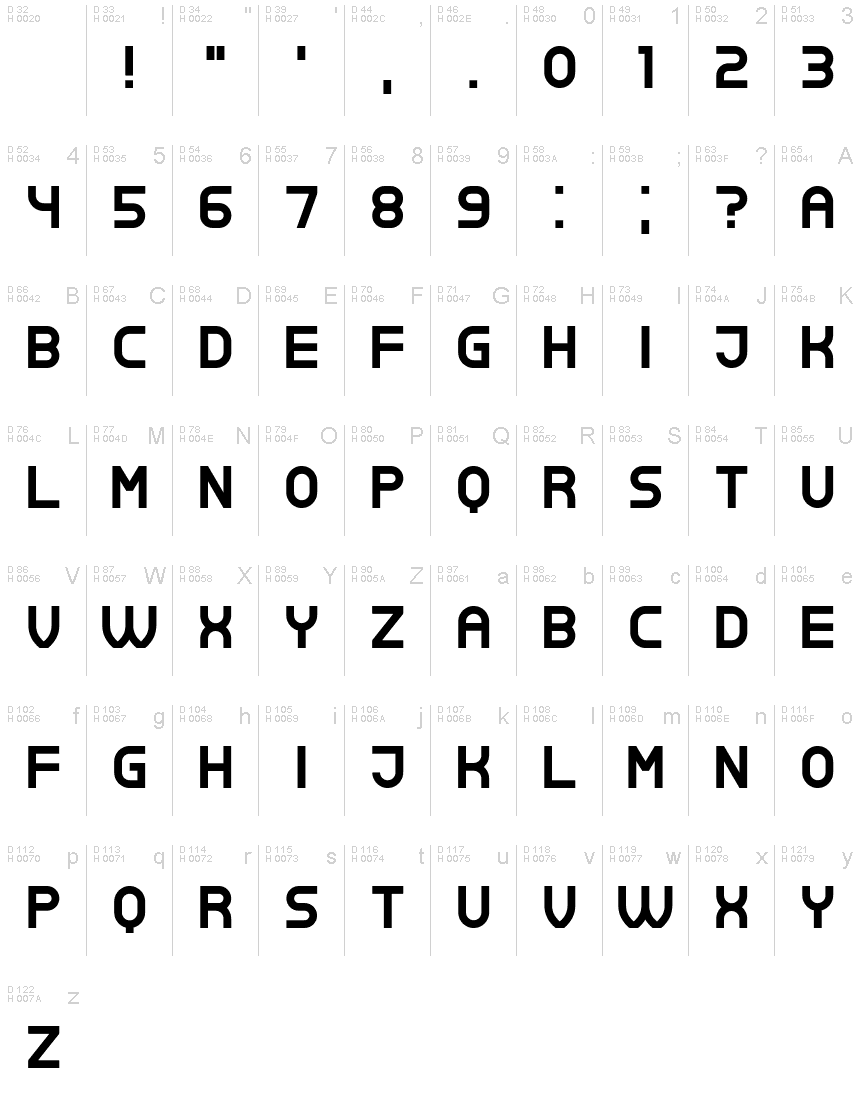
Professionista Regular
Introducing Professionista, a wide sans serif font designed by Vladimir Nikolic. This versatile font is perfect for a variety of projects, from website headers to stationery designs. Its modern feel and balanced letterforms make it an ideal choice for branding, logos and posters.